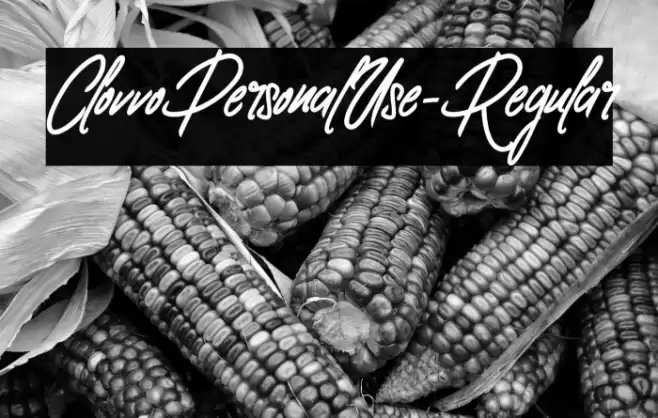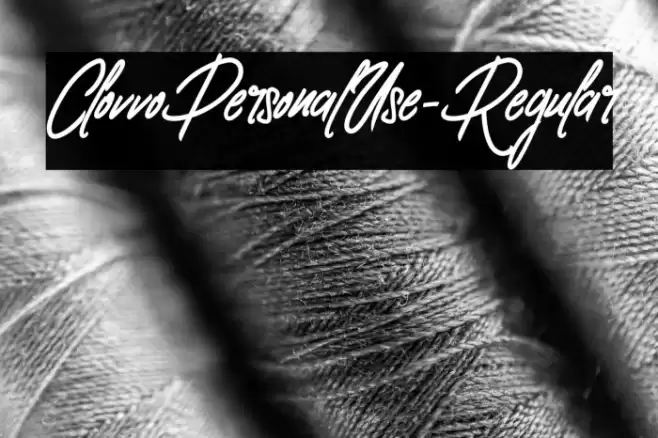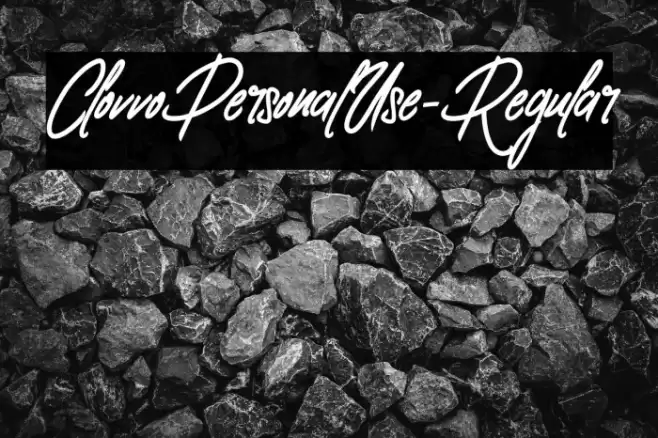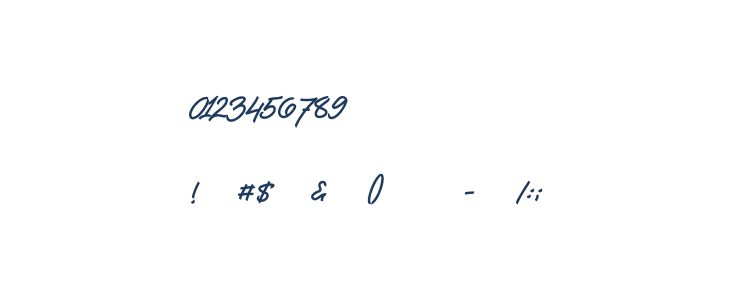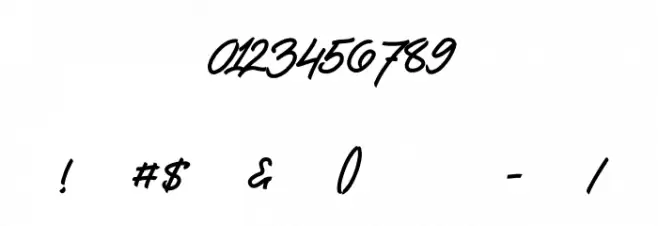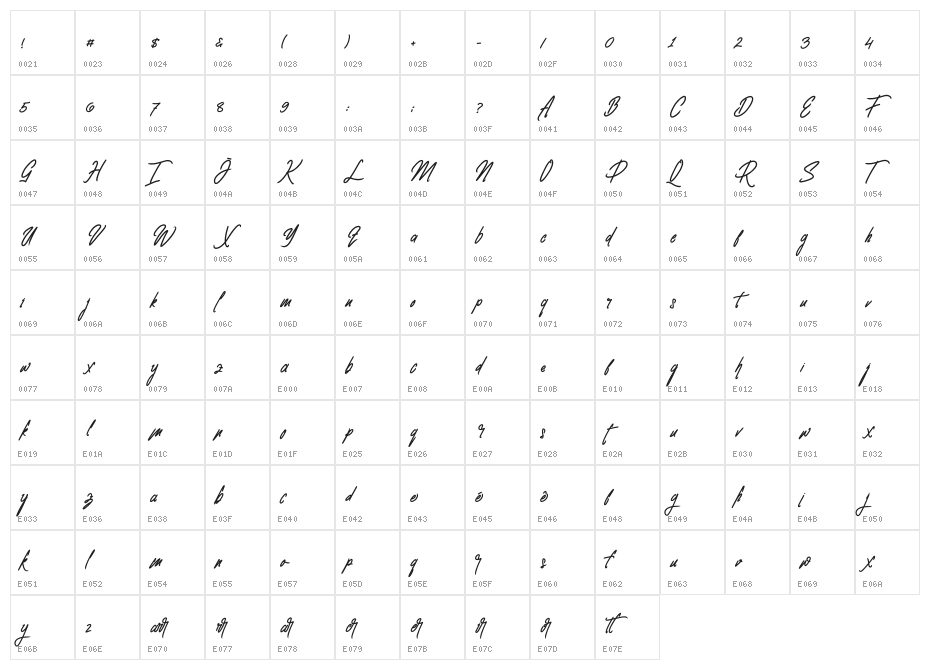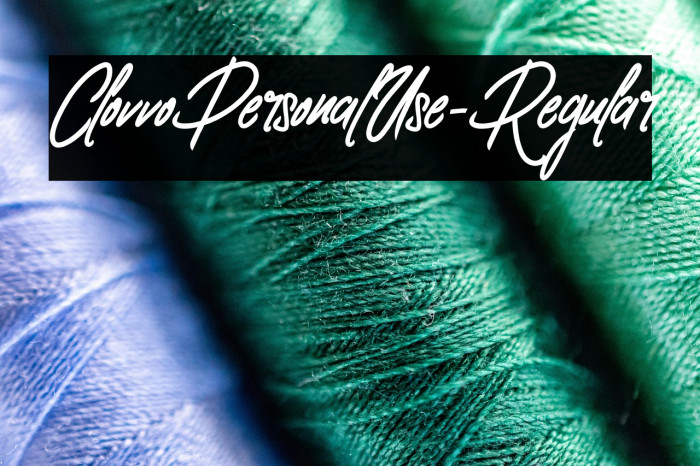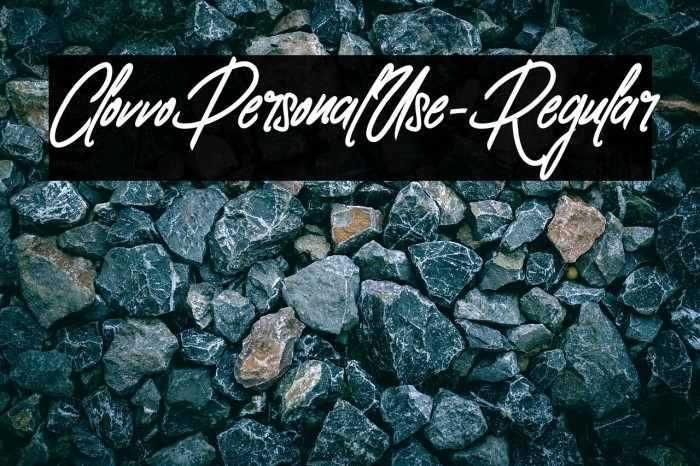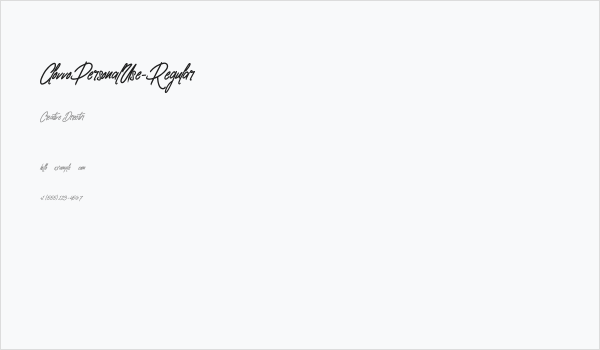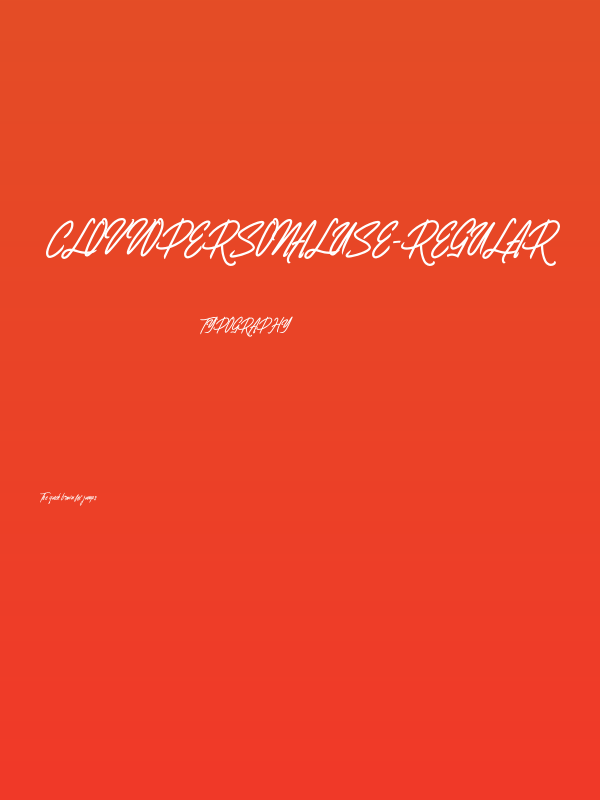
ClovvoPersonalUse-Regular Font
ClovvoPersonalUse-Regular Description
This font exudes a dynamic and expressive style, characterized by its flowing, cursive script that mimics the fluidity of handwriting. The letters are elegantly connected, with a slight slant that adds to its graceful appearance. The uppercase letters are bold and prominent, while the lowercase letters maintain a consistent flow, enhancing readability. The numerals and special characters are crafted with the same attention to detail, ensuring a cohesive look across all elements. This font's artistic flair makes it suitable for creative projects that require a personal touch.
A dynamic, cursive script font with a flowing, handwritten style from Regular fonts.
- Proposed Projects: Ideal for wedding invitations, greeting cards, personal branding, and artistic projects.
- Use Case: Logos, Invitations, Artistic projects